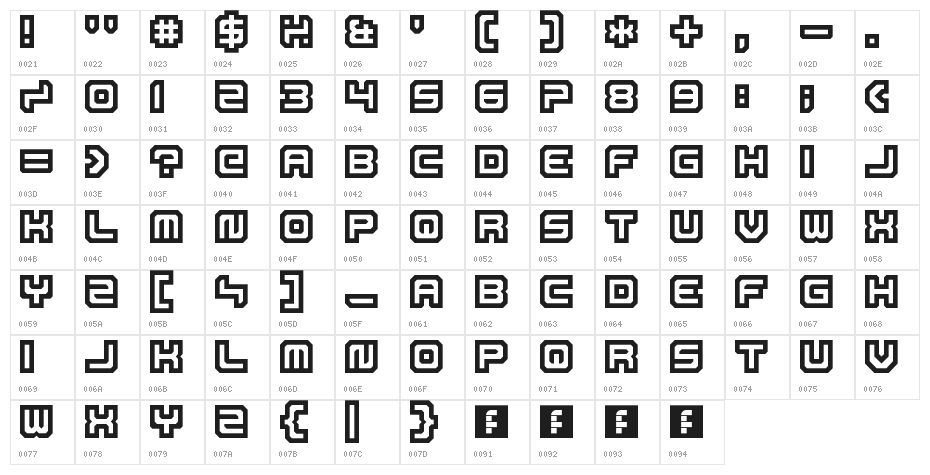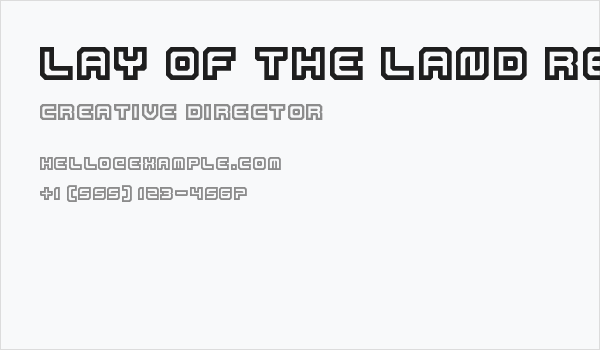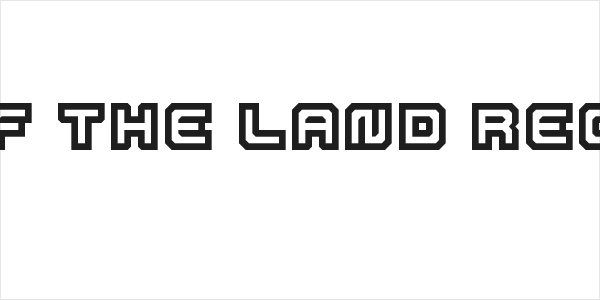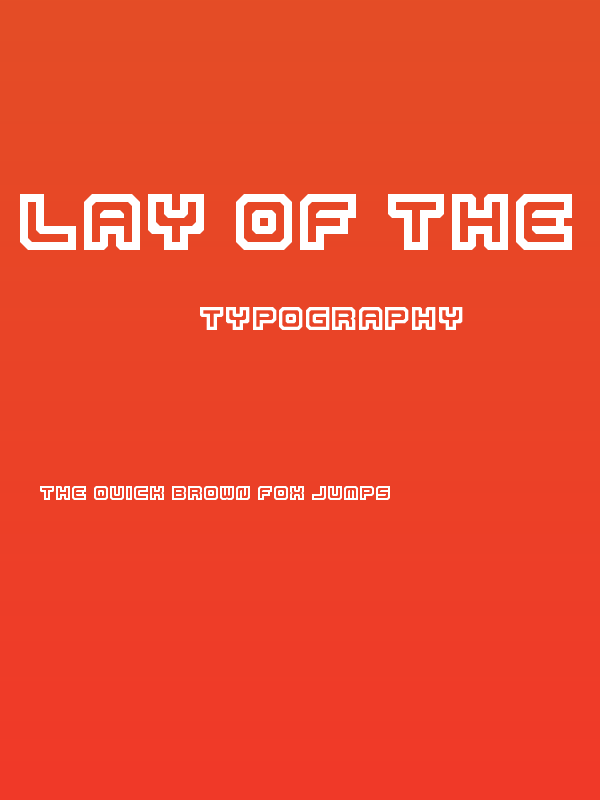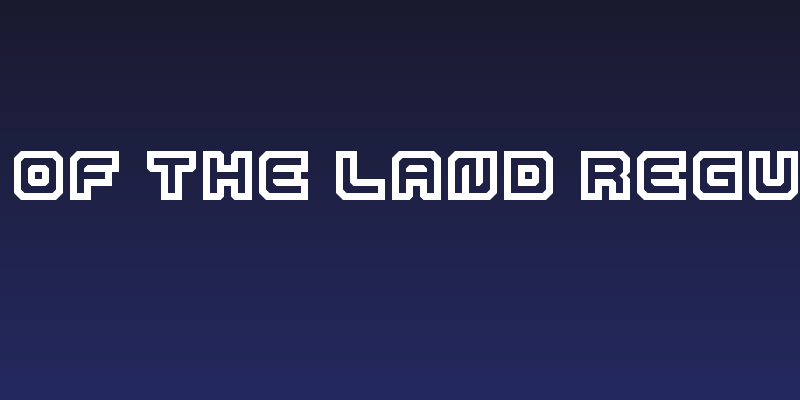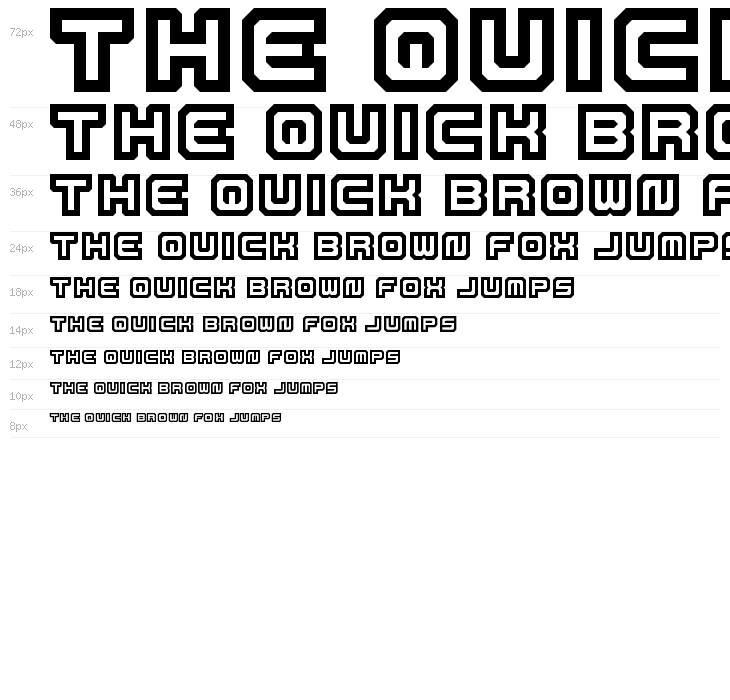
Lay Of The Land Regular Font
Lay Of The Land Regular Description
This font features a bold, geometric style with a strong emphasis on angular shapes and thick outlines. The characters are constructed with a consistent width, giving them a monospaced appearance, although they are not strictly monospaced. The design is reminiscent of digital or futuristic aesthetics, with a blocky and robust structure that conveys a sense of strength and modernity. The uppercase and lowercase letters maintain a uniform height, contributing to a cohesive and orderly look. The numerals and special characters follow the same design principles, ensuring visual harmony across all elements.
Proposed ProjectsIdeal for technology-themed projects, video game titles, posters, and branding that requires a modern and robust look.